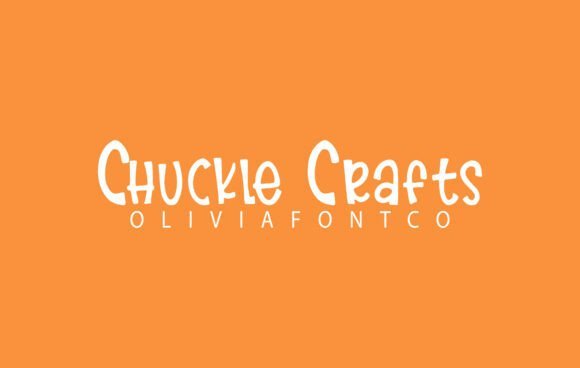
Discover the Joy of Handwritten Charm with the Chuckle Crafts Font
Have you ever stared at a blank page, struggling to find the perfect font to bring your creative vision to life? We’ve all been there, and that’s exactly why the Chuckle Crafts Font was created – to add a touch of whimsy and romance to your designs.
Expertly designed to be a true favorite, this authentic handwritten font is perfect for adding a personal touch to your magazine headlines, social media posts, branding, wedding invitations, and more. With its legibility and versatility, the Chuckle Crafts Font is a valuable addition to any designer’s toolkit, allowing you to take your creative ideas to new heights and make a lasting impression on your audience.
Chuckle Crafts Font Key Features
- Unique Characteristics: The Chuckle Crafts Font features a playful, whimsical design with handwritten elements, making it perfect for craft-related projects, invitations, and social media graphics.
- Character Set: The font includes a wide range of characters, including uppercase and lowercase letters, numbers, punctuation marks, and special symbols.
- Style Options: The Chuckle Crafts Font comes with a variety of style options, including bold, italic, and regular styles, allowing for flexibility in design.
Chuckle Crafts Font Review
Overall, I found the “Chuckle Crafts Font” to be a delightful and charming addition to any design project. Here’s what I liked:
- ✨ Unique and playful style that’s perfect for creating a whimsical atmosphere
- ✨ Wide range of character sets, including extended Latin, Greek, and Cyrillic support
- ✨ Highly customizable, with features like ligatures, swashes, and alternate characters
However, I did encounter some limitations that might affect its usability:
- ⚠️ Limited support for Asian characters, which may be a concern for global design projects
Overall, I think “Chuckle Crafts Font” is a solid choice for designers looking for a playful, creative font. While it has some limitations, its unique style and customization options make it a great addition to any design project. With some careful planning and testing, I think this font can really bring a project to life.
Tips for Getting the Most Out of the Chuckle Crafts Font
Use the Chuckle Crafts Font for creative and playful designs, such as invitations, greeting cards, and children’s book illustrations.
Experiment with different font sizes and colors to add visual interest to your design.
Combine the Chuckle Crafts Font with other fonts and graphics to create a unique and eye-catching design.
The Chuckle Crafts Font is perfect for:
Invitations and greeting cards
Alternatives to Chuckle Crafts Font
Great Vibes is a playful, handwritten font that is perfect for creating a fun and casual atmosphere. It features a unique, hand-drawn style that is ideal for branding, advertising, and packaging designs.
Compared to Chuckle Crafts Font, Great Vibes is more elegant and refined, making it suitable for a wider range of design applications.
Lobster is a fun, cursive font that is great for adding a touch of personality to your designs. It features a bold, expressive style that is perfect for titles, headings, and quotes.